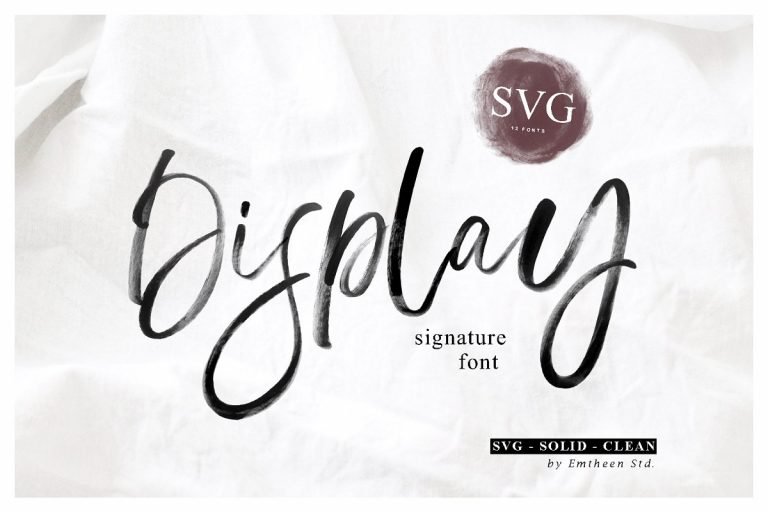
This is a modern brush svg color font. If you are looking for a brush style suited to your design then it’s here. A perfect addition to the professional designers font. Introducing Display Signature Font. It is designed and shared by Emtheen Std.. Display Signature Font is an SVG Font with hand lettering style that has the texture and detail of each letter, this original font is handmade using brush so the font looks more realistic and this font has 3 different styles: SVG, Solid, Clean. This font is very suitable for a variety of different media and design styles